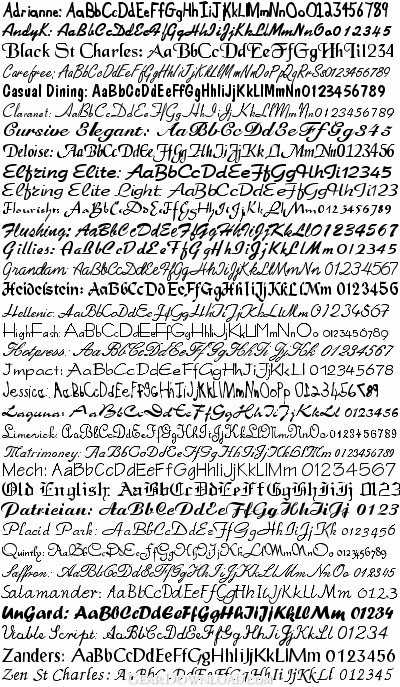
10 hand kerned OpenType Script, Cursive, Calligraphy, hand printing, brush, Old English, and architectural fonts for Windows Vista/XP/2003/2000 or the Mac. Selective install and un-install. Includes: Elfring Elite, Flushing, Grandam, Hotpress, Jessica, Mech Bold, Old English, Patrician, Saffron, and Zen St Charles. These fonts are perfect for invitations, notes, certificates, announcements, menus, posters, greeting cards, signs, advertising, or logos.
The complete font set includes 44 fonts. Each font is hand kerned and contains the full ANSI character set- including the Euro. These fonts work with most Western European languages. They are perfect for invitations, notes, certificates, announcements, menus, posters, greeting cards, signs, advertising, craft work, logos, or virtually any project that requires the elegant look of hand lettering or hand script.